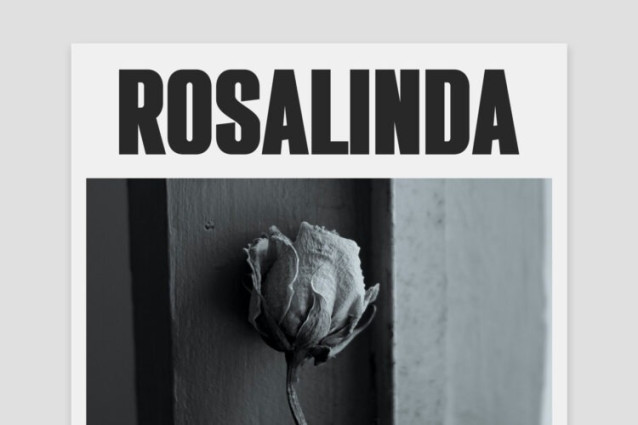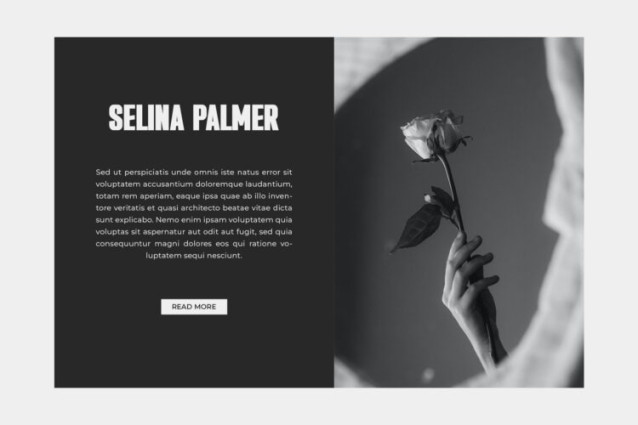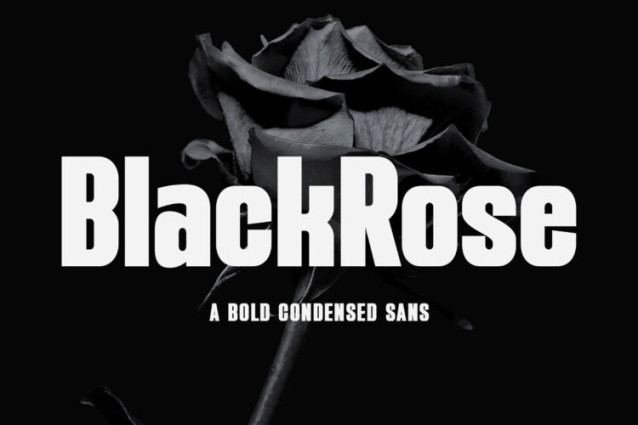
Black Rose Sans Font
Black Rose Sans Font, modern sans serif font with elegant style this is perfect for branding, logos, invitation, magazines, product packaging and more.